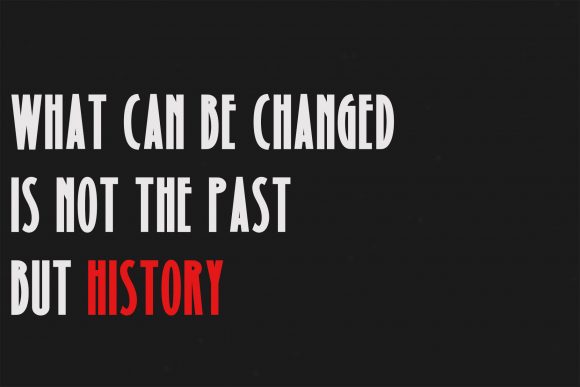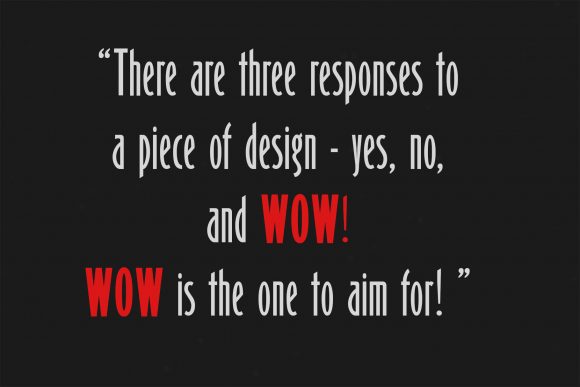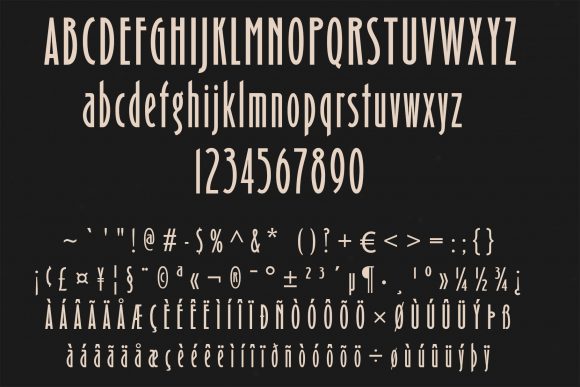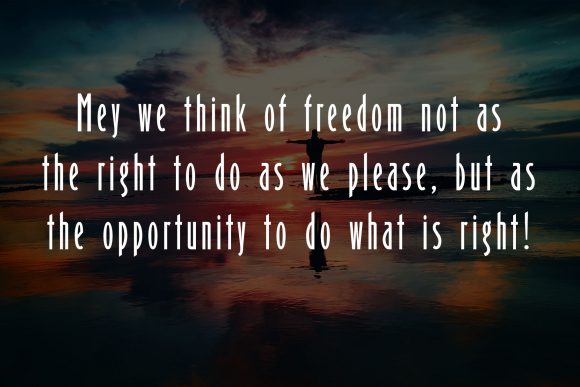
Introducing Arina Font: The Ultimate Sans Serif for Creative Projects
Are you a designer or crafter looking for a font that can elevate your creative projects to the next level? Look no further than Arina Font, a minimal and neat sans serif font that’s perfect for a wide range of applications. With its clean lines and simple design, Arina is an incredibly versatile font that can be matched to an incredibly large set of projects, making it a must-have for any creative looking to add a touch of sophistication and style.
The Characteristics of Arina Font
Arina Font is a sans serif font, which means it doesn’t have the small lines or flourishes that are characteristic of serif fonts. This makes it a great choice for projects where a clean and minimalist look is desired. The font is also highly legible, making it perfect for use in body text, headings, and titles. Its minimal design ensures that it won’t distract from the content, allowing the message to take center stage.
Why Choose Arina Font?
So why choose Arina Font over other fonts? Here are just a few reasons:
- Versatility: Arina Font is incredibly versatile and can be used in a wide range of projects, from digital designs to print materials.
- Legibility: The font is highly legible, making it perfect for use in body text, headings, and titles.
- Clean Design: The clean lines and simple design of Arina Font make it a great choice for projects where a minimalist look is desired.
- Ease of Use: Arina Font is easy to use and can be easily integrated into your design workflow.
How to Use Arina Font in Your Projects
Arina Font can be used in a wide range of projects, including:
- Digital Designs: Use Arina Font in your digital designs, such as website headers, social media graphics, and email marketing campaigns.
- Print Materials: Use Arina Font in your print materials, such as brochures, flyers, and business cards.
- Branding: Use Arina Font as part of your brand identity, including logos, packaging, and advertising materials.
Tips for Getting the Most Out of Arina Font
Here are a few tips for getting the most out of Arina Font:
- Experiment with Different Sizes: Arina Font looks great in a variety of sizes, from small body text to large headings.
- Play with Color: Arina Font can be used with a wide range of colors, from bright and bold to subtle and muted.
- Combine with Other Fonts: Arina Font can be paired with other fonts to create a unique and interesting look.
| Font Name | Arina Font |
| Author | iordache.ionut |
In conclusion, Arina Font is a minimal and neat sans serif font that’s perfect for designers and crafters looking to add a touch of sophistication and style to their creative projects. With its clean lines, simple design, and high legibility, Arina Font is an incredibly versatile font that can be used in a wide range of applications. Whether you’re working on a digital design, print material, or branding project, Arina Font is sure to make your project stand out.